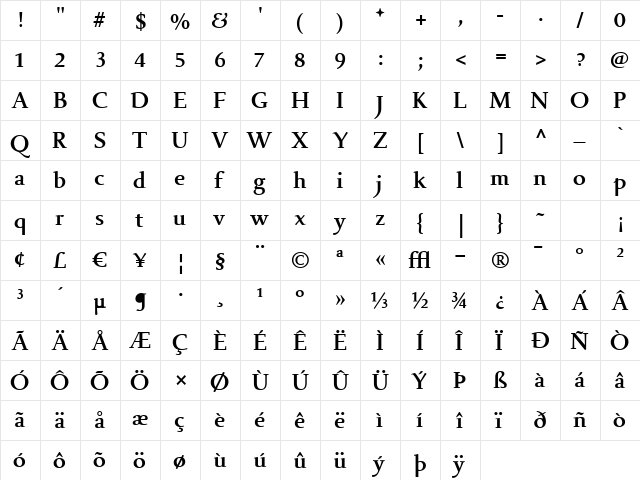
BelenBold Regular
Design Context for BelenBold Typeface
BelenBold is a composed and adaptable typeface that performs quietly and consistently across a wide range of design contexts. Its bold stroke weight gives it real presence on the page.